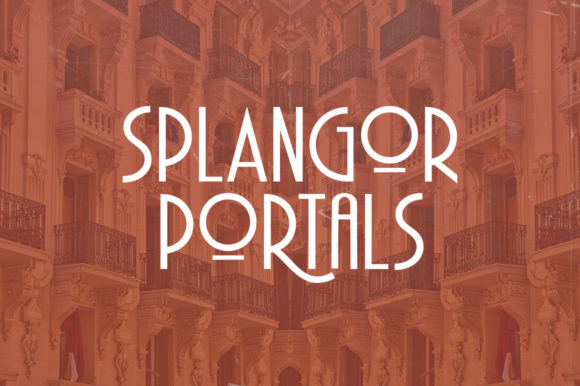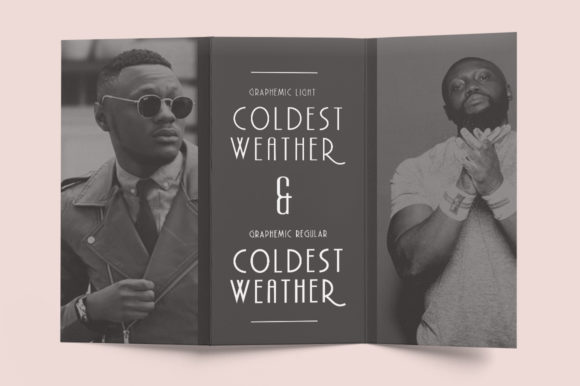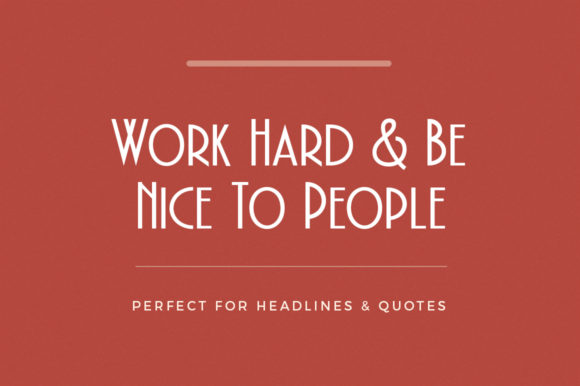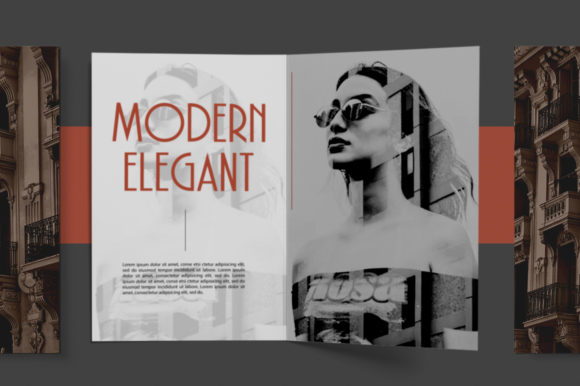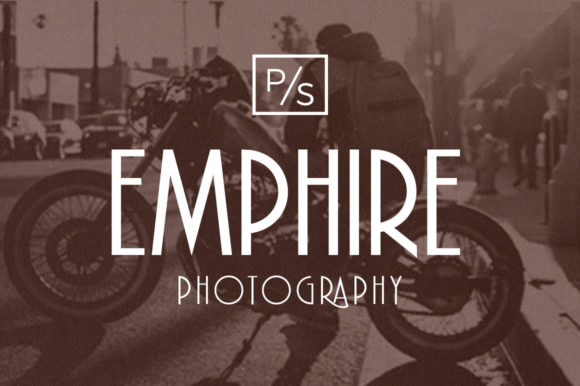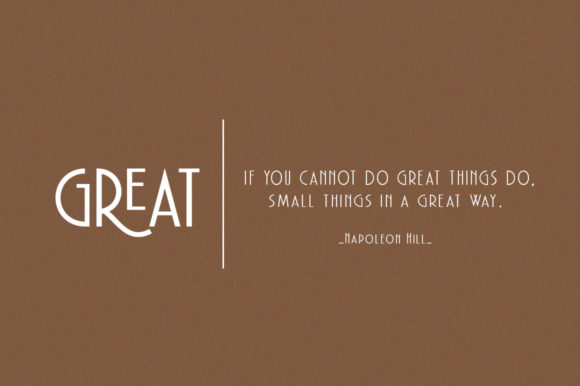
The Perfect Blend of Style and Substance: Introducing the Graphemic Font
You know that moment when you’re brainstorming ideas for a new project and everything just clicks? The font, the color scheme, the overall vibe – it all comes together in perfect harmony. For designers, this moment is a thrill like no other, and the right font can make all the difference. That’s where the Graphemic Font comes in – a modern display font that’s as versatile as it is beautiful.
This stunning font has a delicate touch that’s perfect for adding a touch of elegance to your next design. Whether you’re working on a headline, branding, or just need a font that’s going to elevate your work, the Graphemic Font is a valuable addition to any designer’s toolkit.
Key Features of Graphemic Font
- Size and Resolution: The font is designed to be scalable, making it suitable for use in various sizes and resolutions, from 72 dpi to 300 dpi.
- Unique Character Set: Graphemic Font features a unique set of characters that are designed to be easily readable at small sizes, making it ideal for use in digital displays and signage.
- High Contrast: The font’s design ensures high contrast between the characters and the background, making it suitable for use in environments with varying lighting conditions.
- Legibility: Graphemic Font is designed to be highly legible, even at small sizes, making it suitable for use in applications where readability is critical, such as in signage and wayfinding systems.
- Customization Options: The font offers a range of customization options, including bold, italic, and condensed styles, allowing designers to tailor the font to their specific needs.
Graphemic Font Review
As a designer, I’ve had the chance to work with the Graphemic Font, and I must say, it’s a unique addition to any digital project. ✨ The font’s irregular shapes and creative letterforms make it stand out from more traditional sans-serif fonts.
- ✨ The font’s quirky aesthetic makes it perfect for projects that require a bit of personality and whimsy.
- ✨ The bold weights are especially effective in headings and titles, adding a touch of drama to any layout.
- ✨ The font is highly customizable, allowing designers to tweak the spacing and styling to suit their needs.
- ⚠️ The font’s irregular shapes can make it difficult to read in certain contexts, particularly at smaller sizes.
- ⚠️ The font’s uniqueness can also be a double-edged sword, making it less suitable for projects where consistency is key.
Overall, I think the Graphemic Font is a great choice for designers looking to add some flair to their work. While it may not be the best fit for every project, it’s definitely worth considering when you need something that stands out from the crowd.
Graphemic Font is ideal for designing visually appealing and unique text-based graphics. Some common use cases include:
– Creating eye-catching social media graphics
– Designing engaging posters and flyers
– Developing distinctive logos and branding materials
– Enhancing the visual appeal of presentations and documents